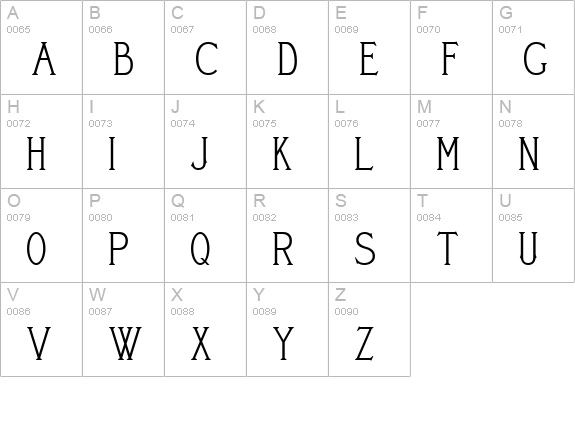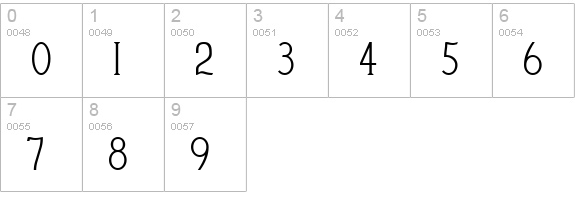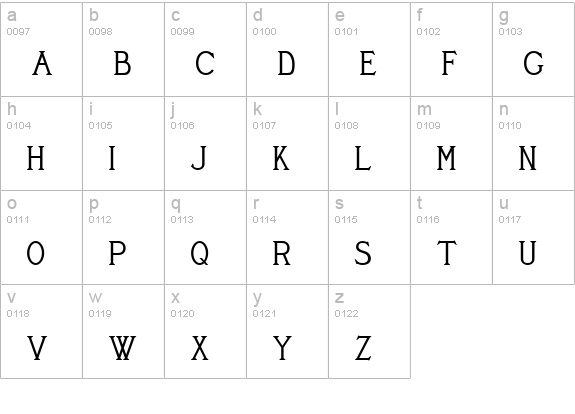
Cleaver's_Juvenia Font Details
Cleaver's_Juvenia font is a modern and stylish typeface that exudes sophistication and elegance. Its sleek lines and unique design make it perfect for a wide range of design projects, from branding to editorial layouts. The font features a perfect balance of sharp edges and gentle curves, creating a harmonious and eye-catching aesthetic. What sets Cleaver's_Juvenia font apart is that it is not only visually stunning, but also completely free to download. This means that you can elevate your designs without breaking the bank. You can easily access this stunning font at FontsMarket.com, where you can freely download and use it in your projects without any restrictions. Whether you're working on a website, a poster, a logo, or any other design project, Cleaver's_Juvenia font will add a touch of sophistication and style that will make your work stand out. Don't miss the opportunity to enhance your designs with this beautiful and free font.